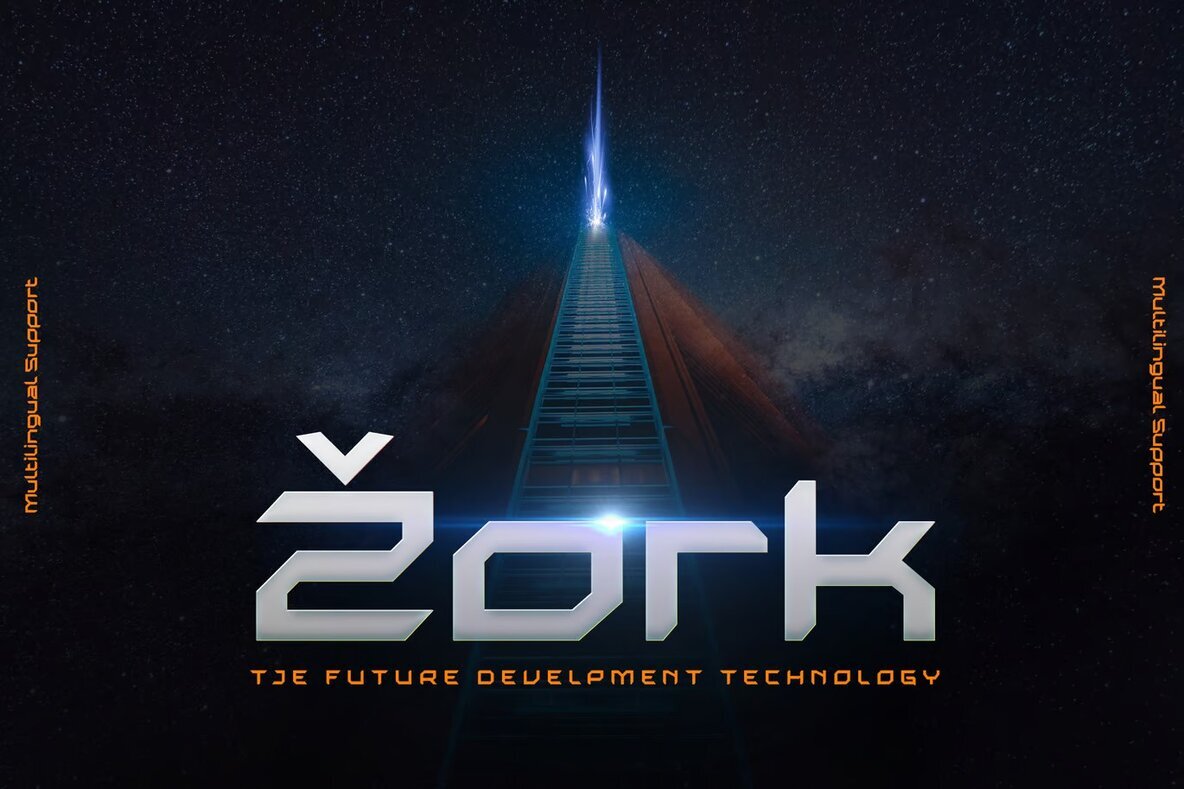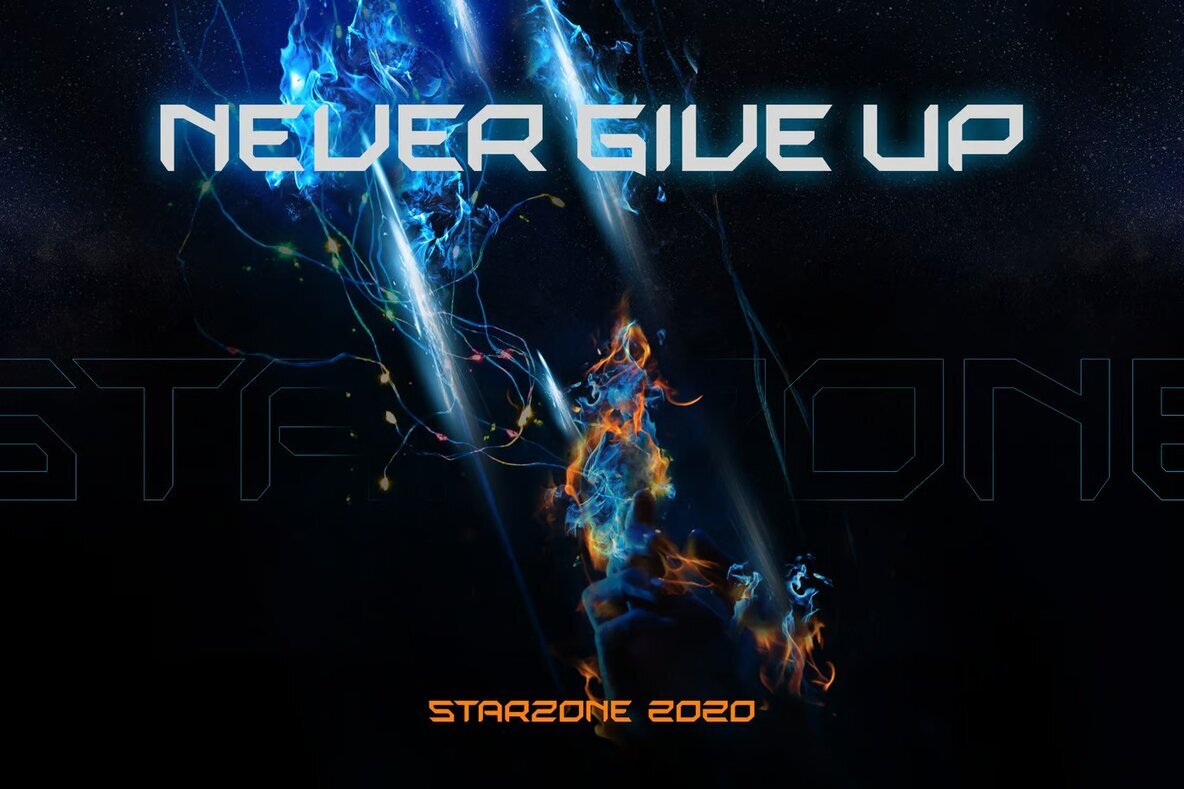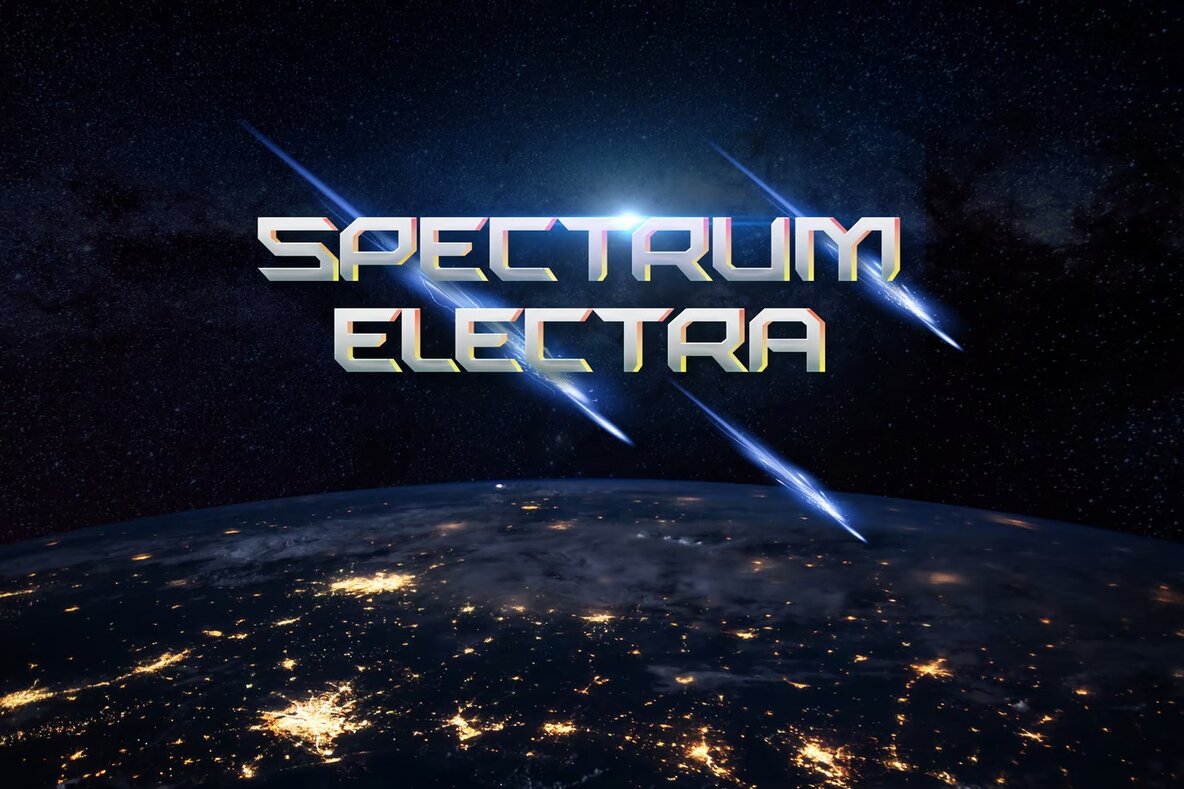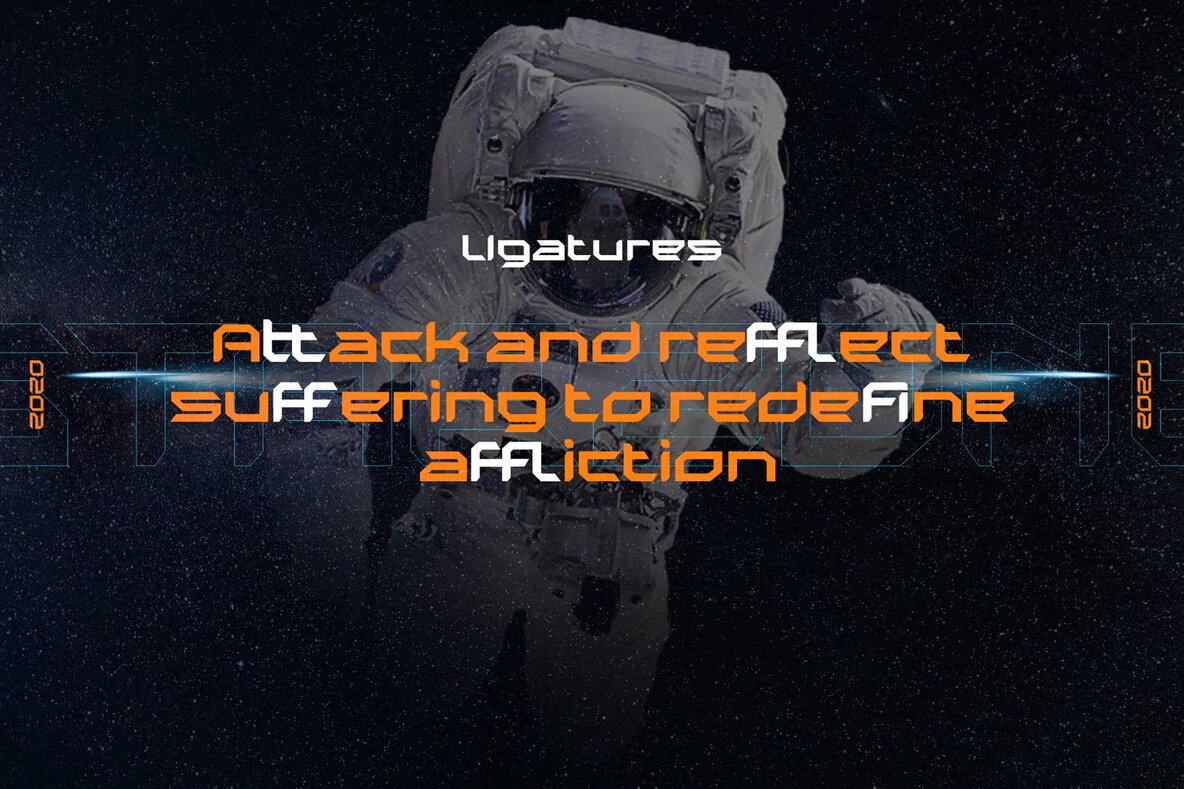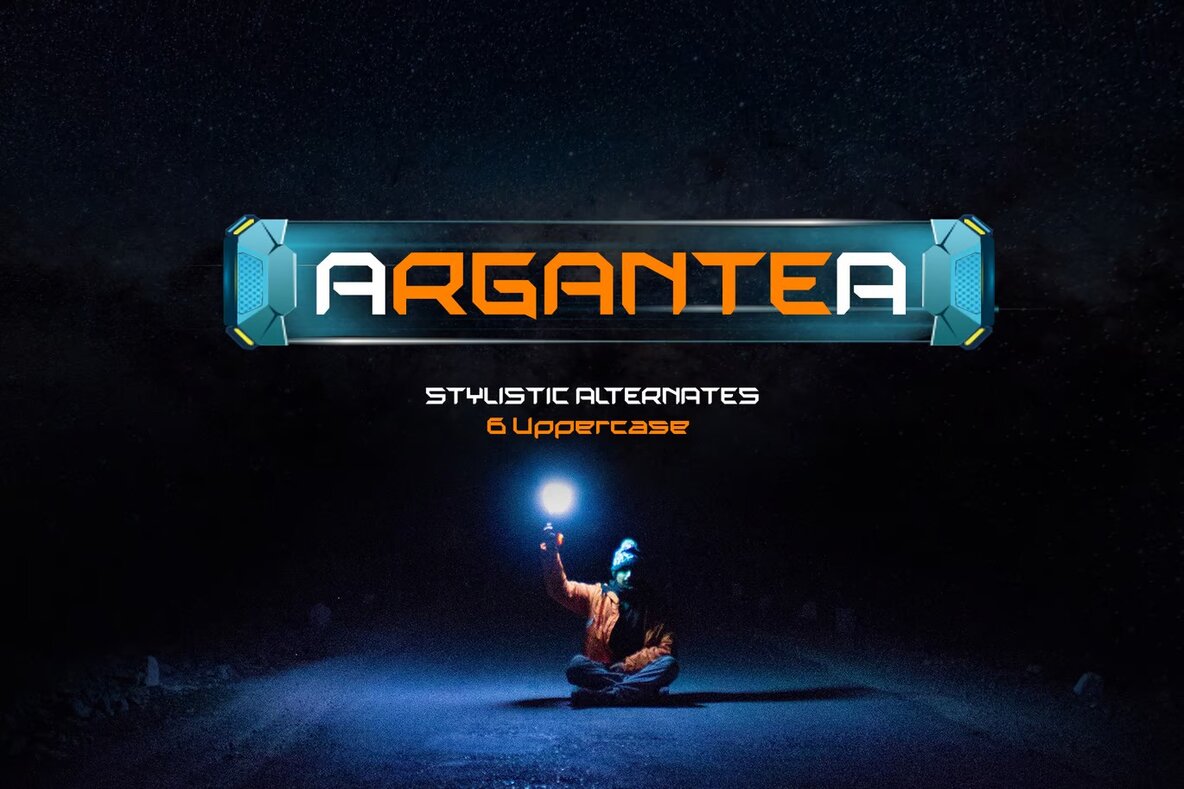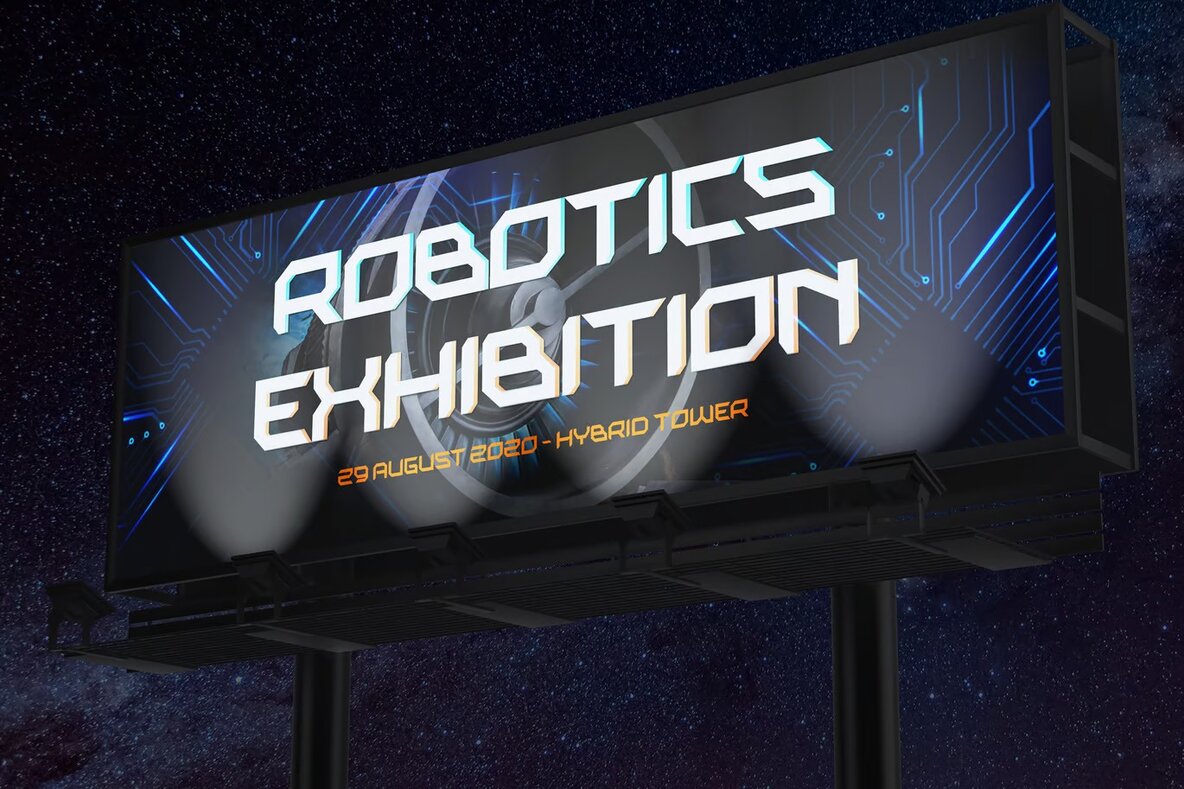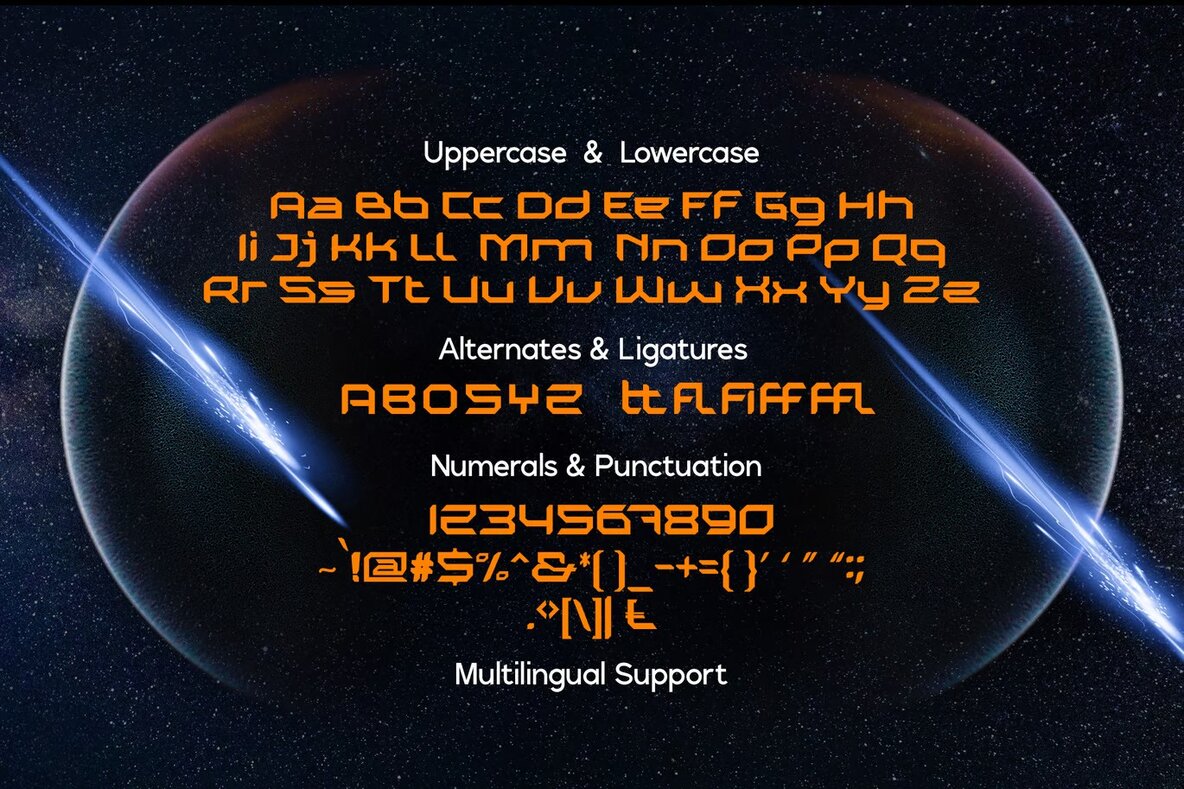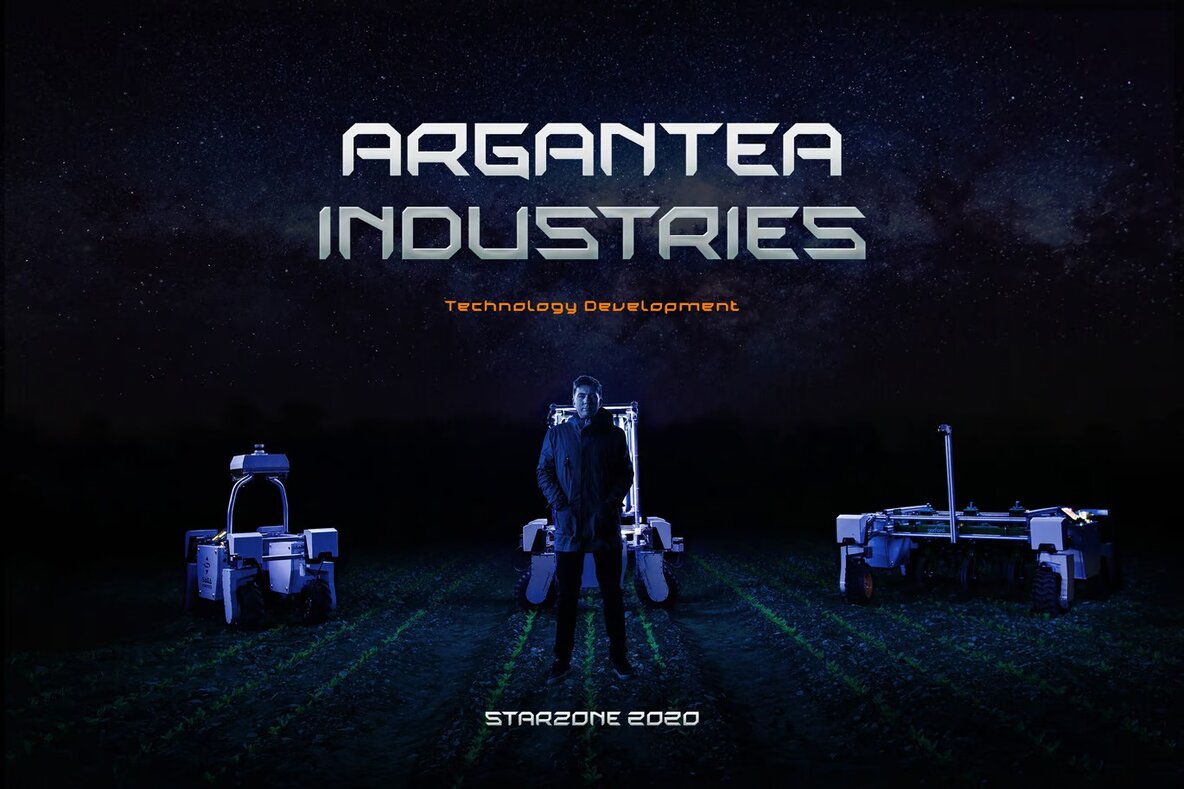
Starzone Font
Starzone is a SciFi-inspired font that embodies a robotic and futuristic aesthetic, perfect for various design applications. Its versatile style is ideal for logos, branding, and poster designs, particularly those with a science fiction theme. The sleek lines and bold presence make it a strong choice for adding a modern touch to your projects.
Whether you’re working on product packaging, invitations, or advertising materials, Starzone’s distinctive look will capture attention and enhance the visual appeal. It's also well-suited for sport apparel branding, game industry materials, and movie posters, providing a contemporary and forward-thinking typographic solution for any futuristic design project.